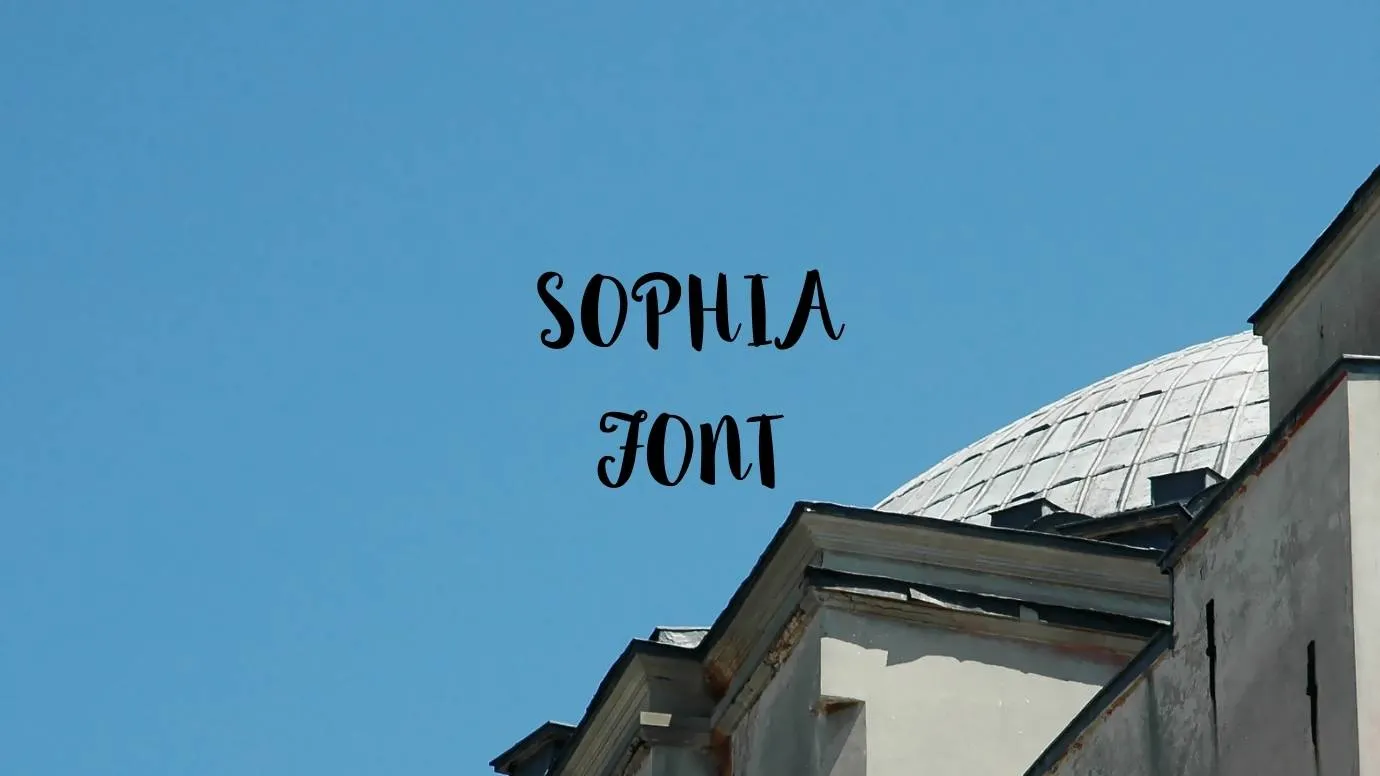
Sophia Script is an excellent brush typeface family that contains 3 weights including regular, left, and right. It was designed and shared in 2016 by a famous female designer named Emily Spadoni.
The featuring of this font family is the coolest, spicy, and a little shabby, and has a quirky aspect of creating thin lines in the font family makes it more eye-catching as compared with some other brush fonts. That’s why it can be not neglectable by the designers.
Sophia Script Font